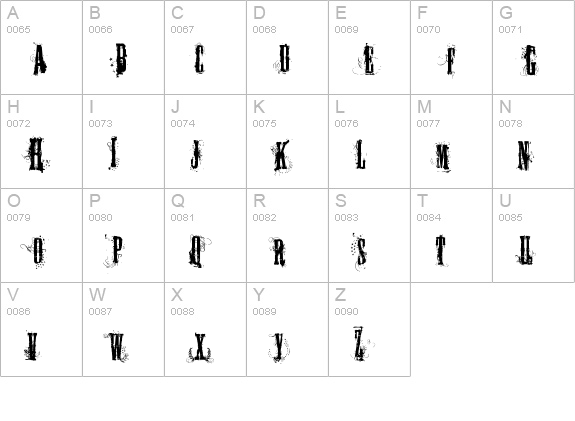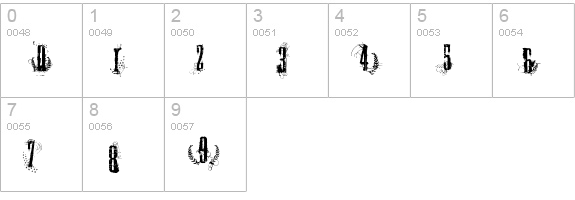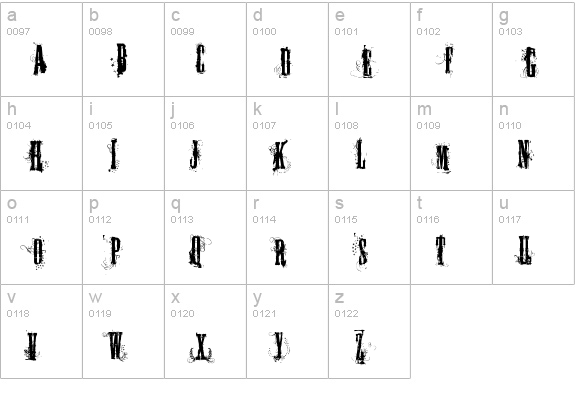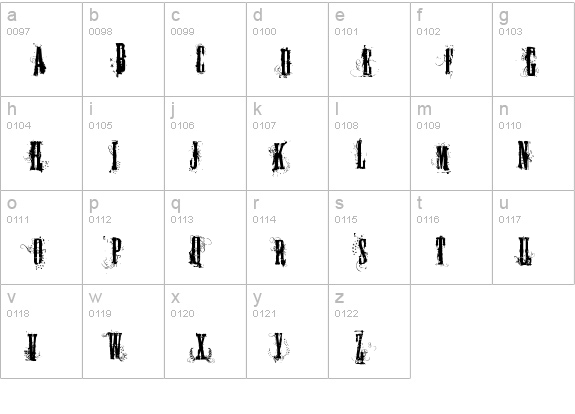
FUCK YOU LAS VEGAS Font Details
The "FUCK YOU LAS VEGAS" font is a bold and dynamic typeface that exudes attitude and personality. With its edgy design and sharp angles, this font is perfect for making a statement in your designs. Whether you're looking to add a touch of rebelliousness or simply want to stand out from the crowd, "FUCK YOU LAS VEGAS" has got you covered. Best of all, this font is available for free download at FontsMarket.com. So go ahead and unleash your creativity with this unique and eye-catching typeface. Let your words speak loud and clear with the "FUCK YOU LAS VEGAS" font.